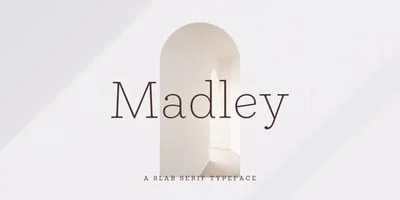
Madley Font
Madley Font is perfect for creative design applications including artistic branding, independent publications, experimental graphics, gallery exhibitions, creative studio logos, unconventional marketing campaigns, avant-garde posters, and innovative editorial layouts. This distinctive typeface brings artistic flair and creative expression to projects that celebrate individuality and design innovation.
What makes Madley Font exciting is its unique blend of structured design principles with expressive character variations that creates a truly distinctive typographic voice. The font features unconventional letterforms with creative flourishes and artistic details that challenge traditional typography conventions while maintaining practical readability. Its innovative character appeals to audiences who appreciate creative risk-taking and artistic authenticity.
The Madley Font family includes various artistic styles such as Regular, Bold, Light, and decorative alternates with experimental character variations that enhance the creative aesthetic. These innovative options provide comprehensive design solutions for projects that require unique typographic expression and artistic distinction from conventional design approaches.
This specialized creative typeface represents the cutting edge of experimental typography and artistic design exploration. Creative agencies and artistic brands choose Madley Font for its exceptional ability to communicate creativity and design innovation. The font's experimental nature makes it perfect for art galleries, design studios, and creative professionals who want to project artistic leadership and unconventional thinking. Its distinctive character ensures memorable visual impact while maintaining the authentic aesthetic that defines exceptional creative design work.